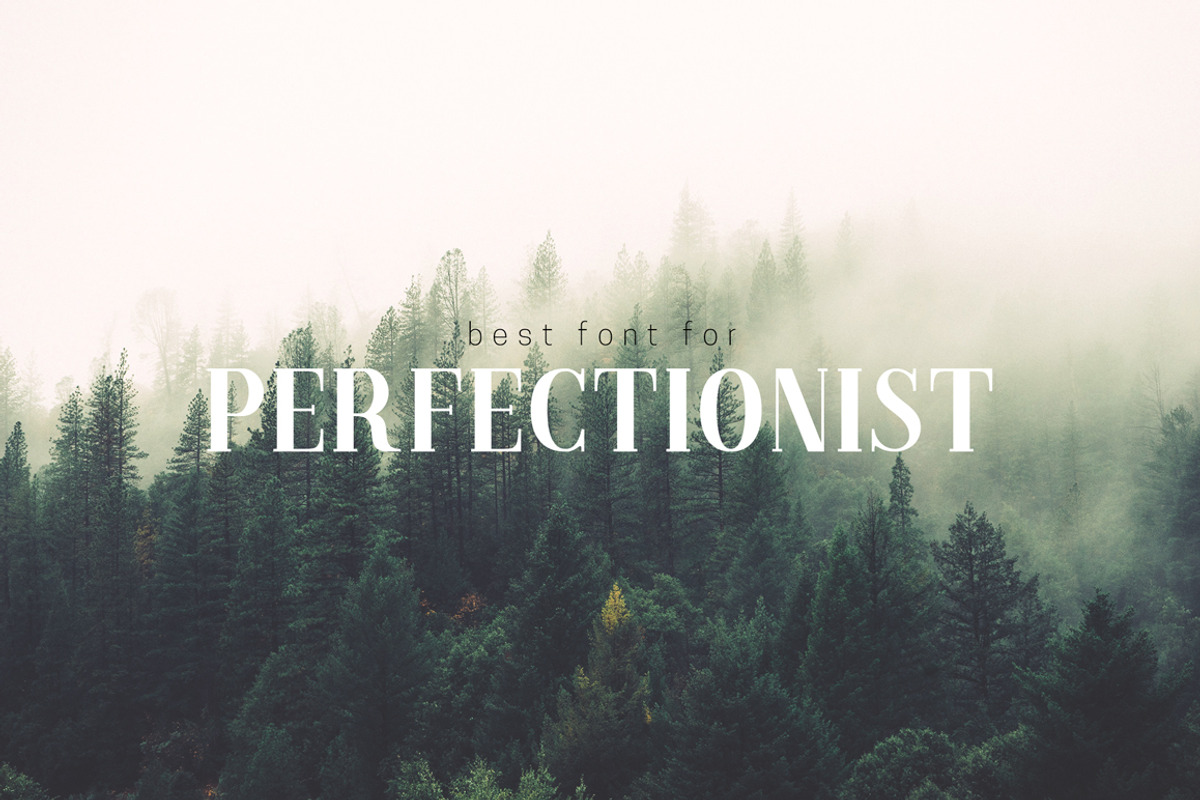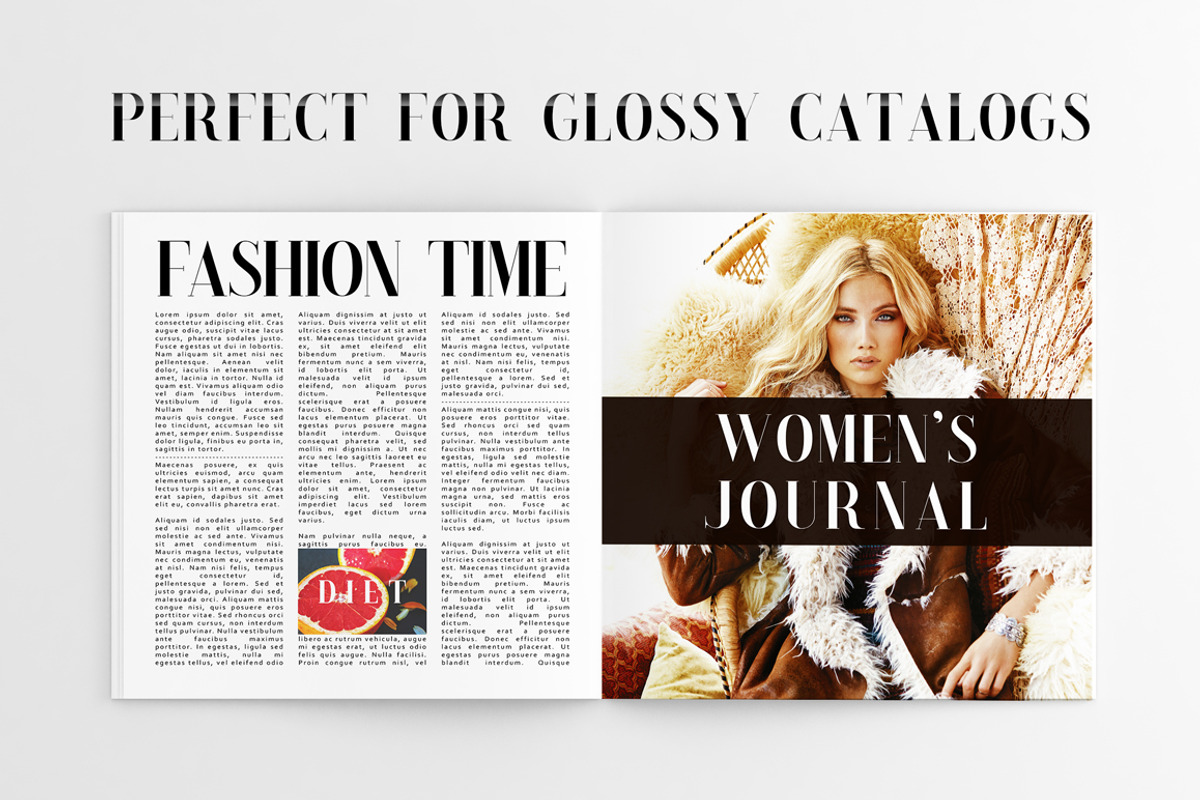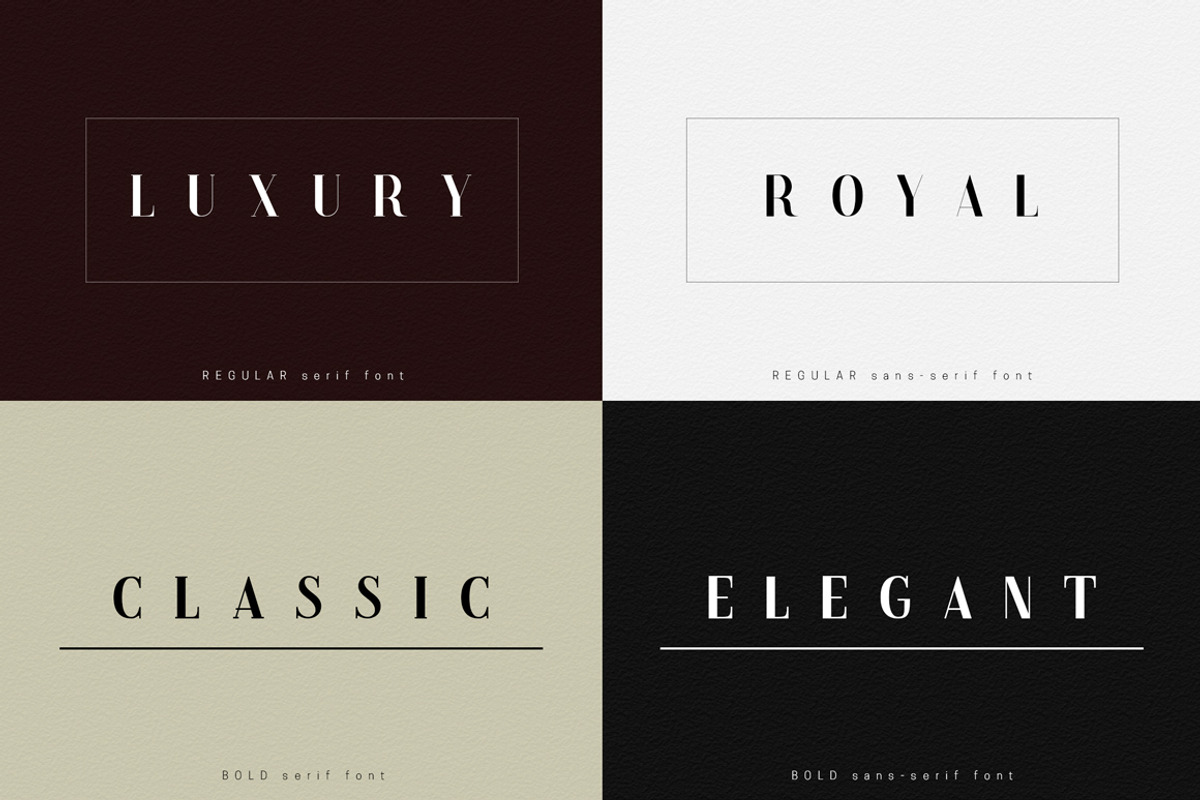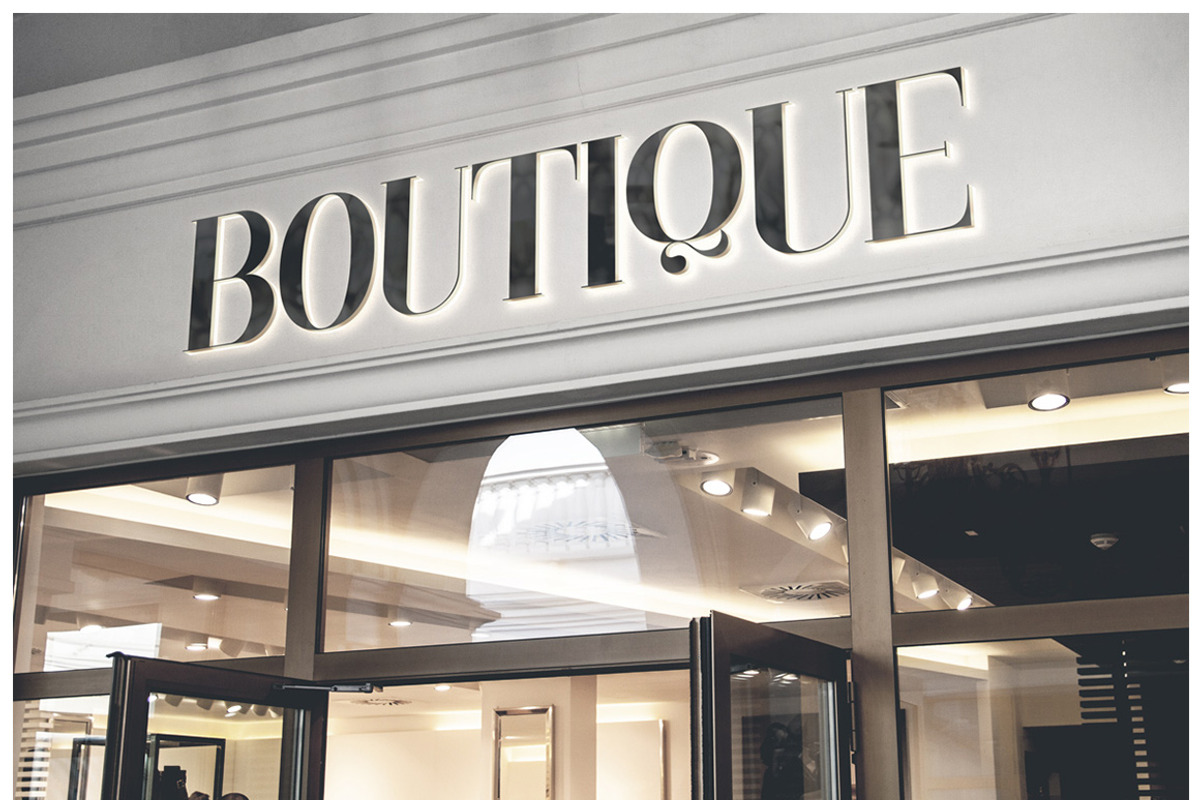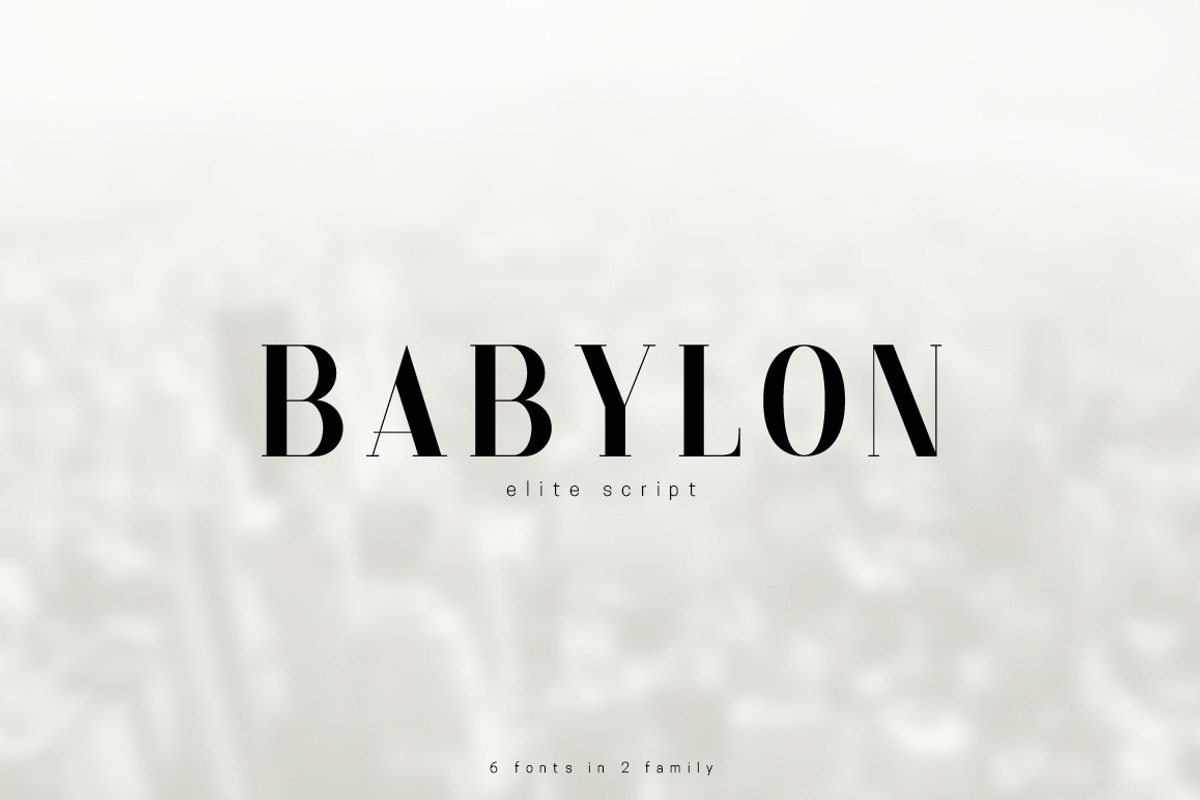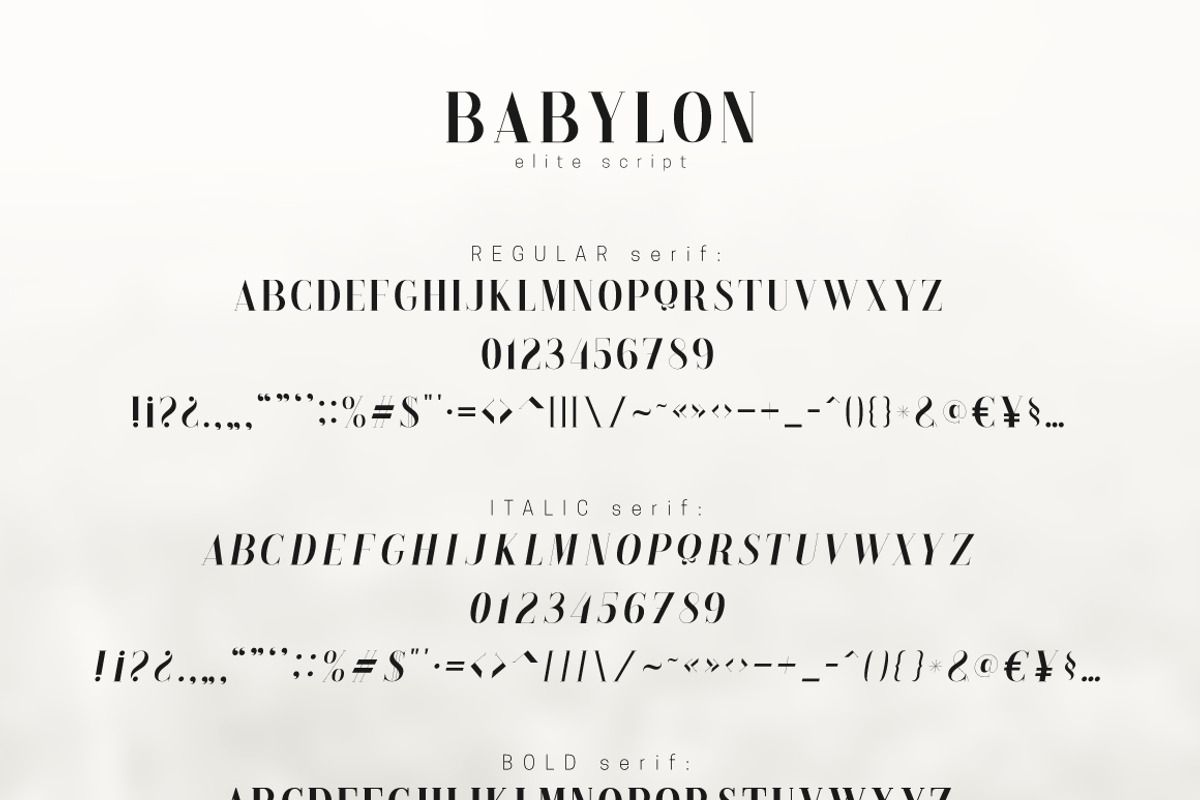
Babylon. Pack of 6 fonts
Babylon is perfect and elegant font script.
The ideal font for the design logo of luxury boutiques, expensive presentations and corporate identity. Perfect for titles of glossy magazines.
Babylon font - it is a combination of sophistication and wealth. Font highlight the status and importance of the company. Typeface is very meticulously created and eventually brought to the ideal. It is suitable for the most demanding customers-perfectionists.
- Uppercase Perfect Letters
- Numbers & basic Punctuation
- Serif and Sans-Serif Typeface
- Regular, Bold and Italic font style
- 2 family of 6 fonts
- Absolutely Perfect Font